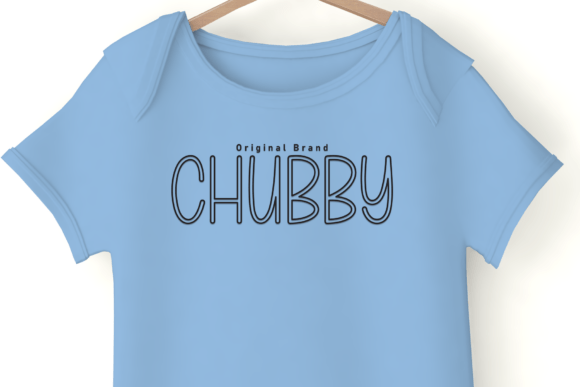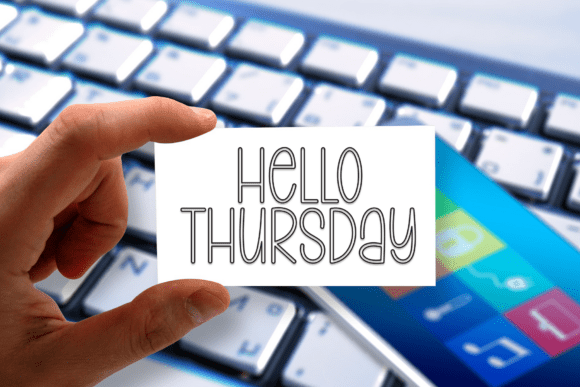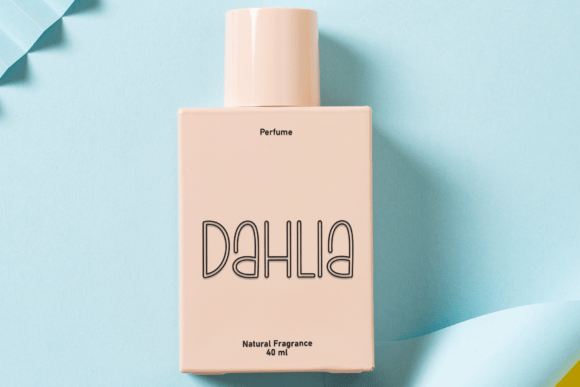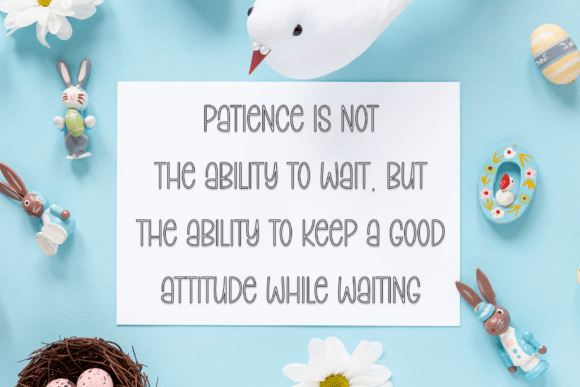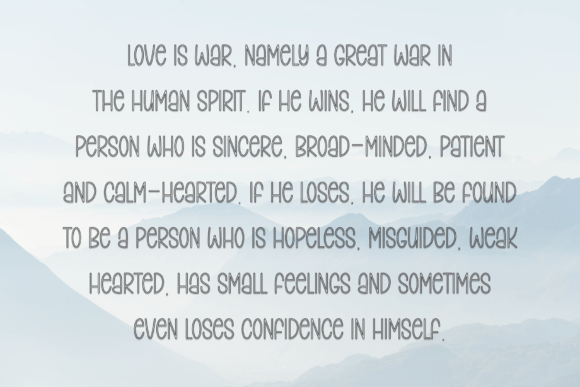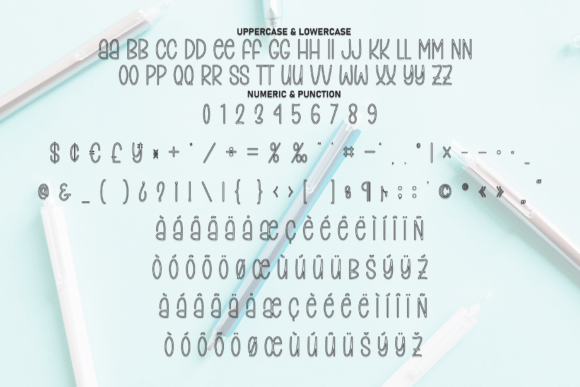
Unlock the Charm of Handwritten Love with Ballpoint Font
There’s nothing quite like the feeling of pouring your heart and soul into a creative project, watching it come to life as you carefully craft each detail. Whether it’s a heartfelt wedding invitation or a whimsical greeting card, the perfect font can make all the difference. That’s where the Ballpoint Font comes in – a beautifully crafted handwritten display font designed to bring warmth and personality to your designs.
With its welcoming and charming aesthetic, the Ballpoint Font is the perfect tool for designers looking to add a touch of whimsy and joy to their projects. Its versatility makes it ideal for a wide range of applications, from wedding invitations to social media graphics. By incorporating the Ballpoint Font into your design, you’ll be able to inject a sense of heartiness and charm that’s sure to leave a lasting impression.
Ballpoint Font Key Features
- Font Family: Ballpoint is a sans-serif font family designed for digital use, with a unique rounded edge aesthetic.
- Unique Characteristics: Ballpoint’s distinctive rounded edges and subtle flair give it a friendly, approachable feel, making it ideal for corporate, educational, and consumer branding.
Ballpoint Font Review
Overall, Ballpoint Font is a decent addition to any digital design library. While it’s not without its flaws, it’s a solid choice for projects that require a playful, handwritten feel.
- Unique character set that captures the essence of handwritten text
- Good legibility at larger font sizes
- Playful, whimsical feel that’s perfect for creative projects
- May not be the best choice for formal or professional projects
- Font weights and styles are somewhat limited
- May require additional styling to achieve desired aesthetic
Overall, Ballpoint Font is a fun and creative choice that’s worth considering for the right project. While it may not be the best fit for every design, it’s a great option for those looking to add some personality to their work.
Use Ballpoint Font for:
1. Creating a nostalgic or vintage feel.
2. Adding a touch of whimsy to your designs.
3. Creating a distressed or worn look.
Remember to experiment with different font sizes, colors, and styles to get the most out of Ballpoint Font.